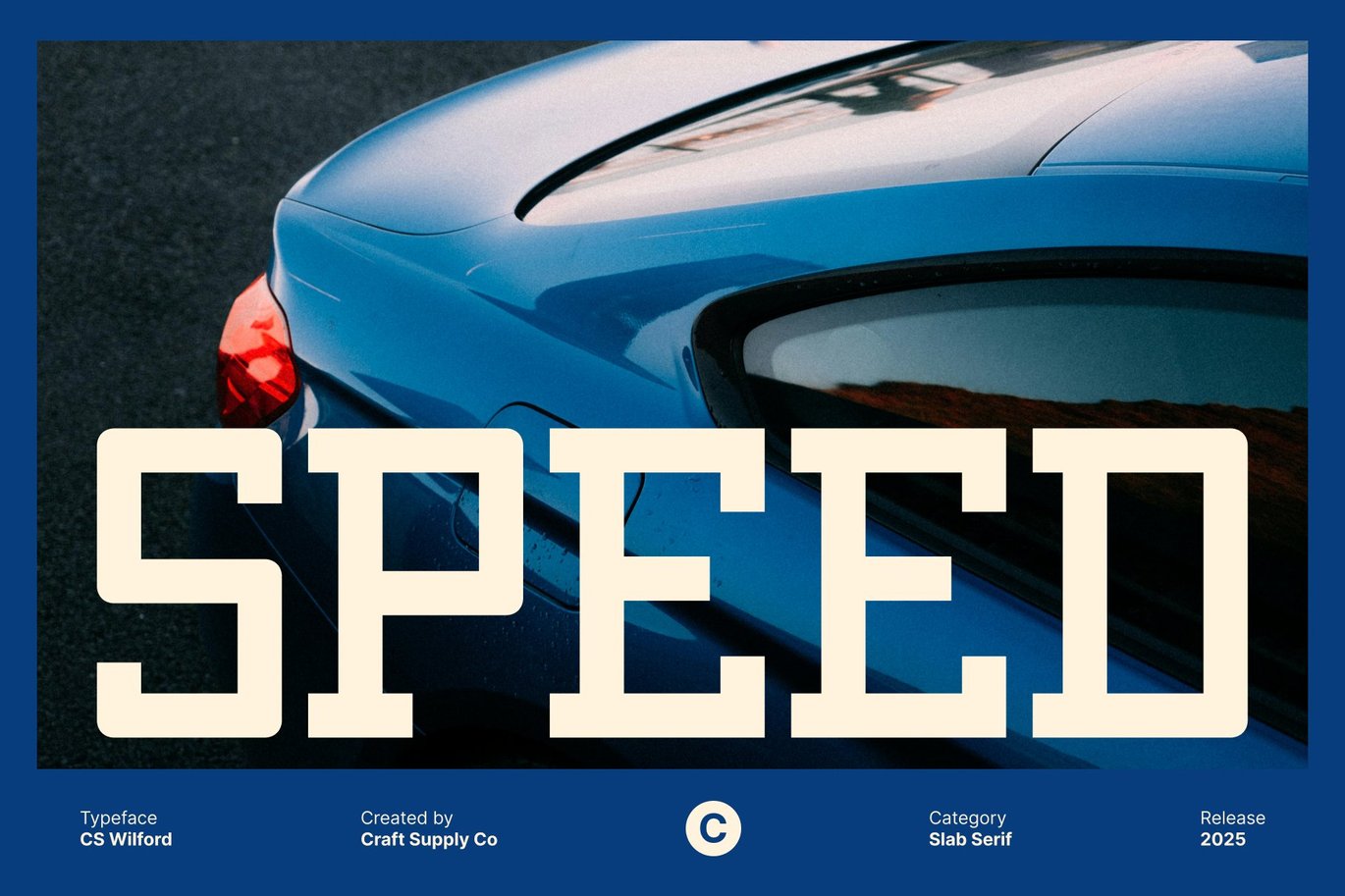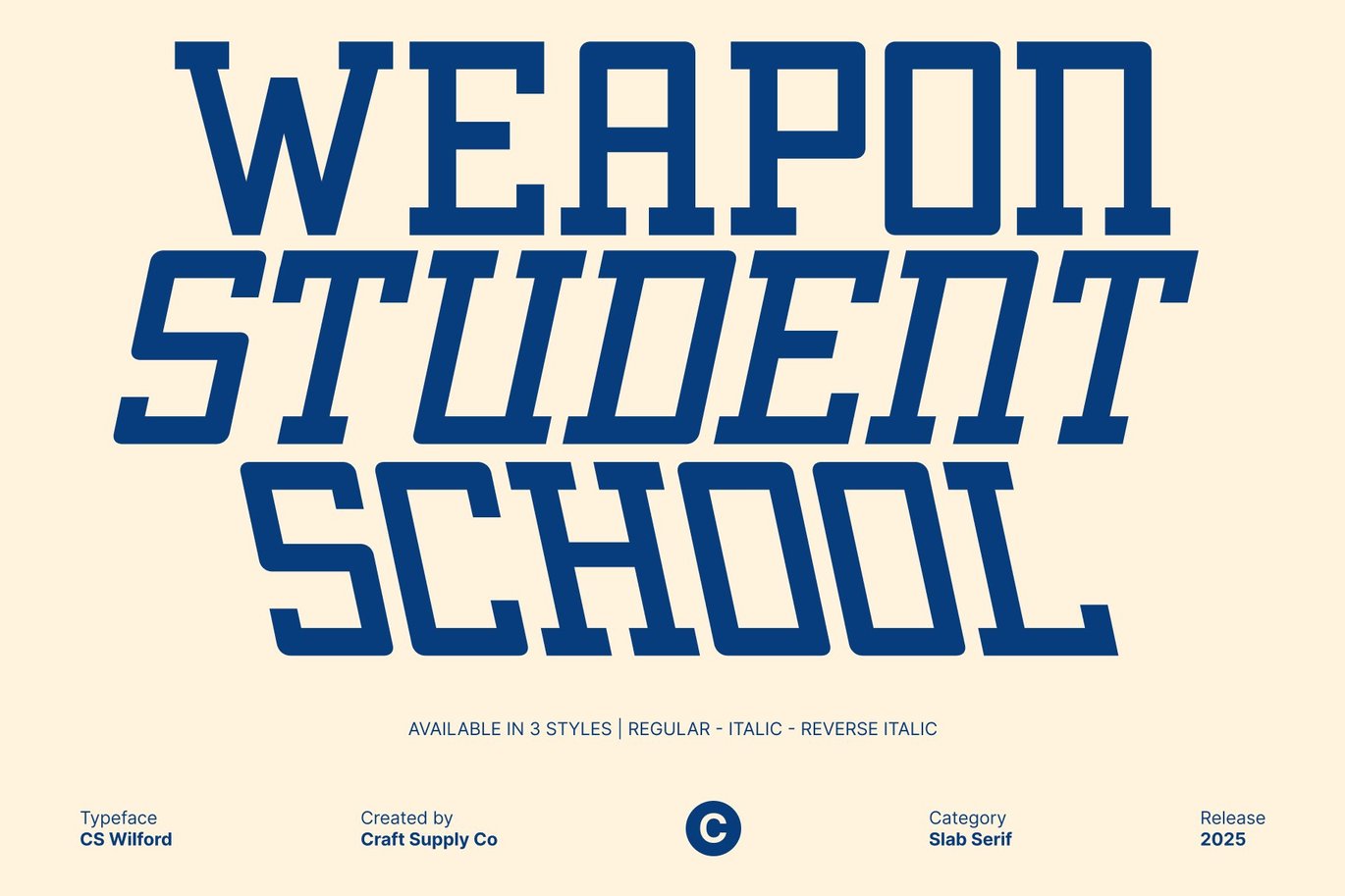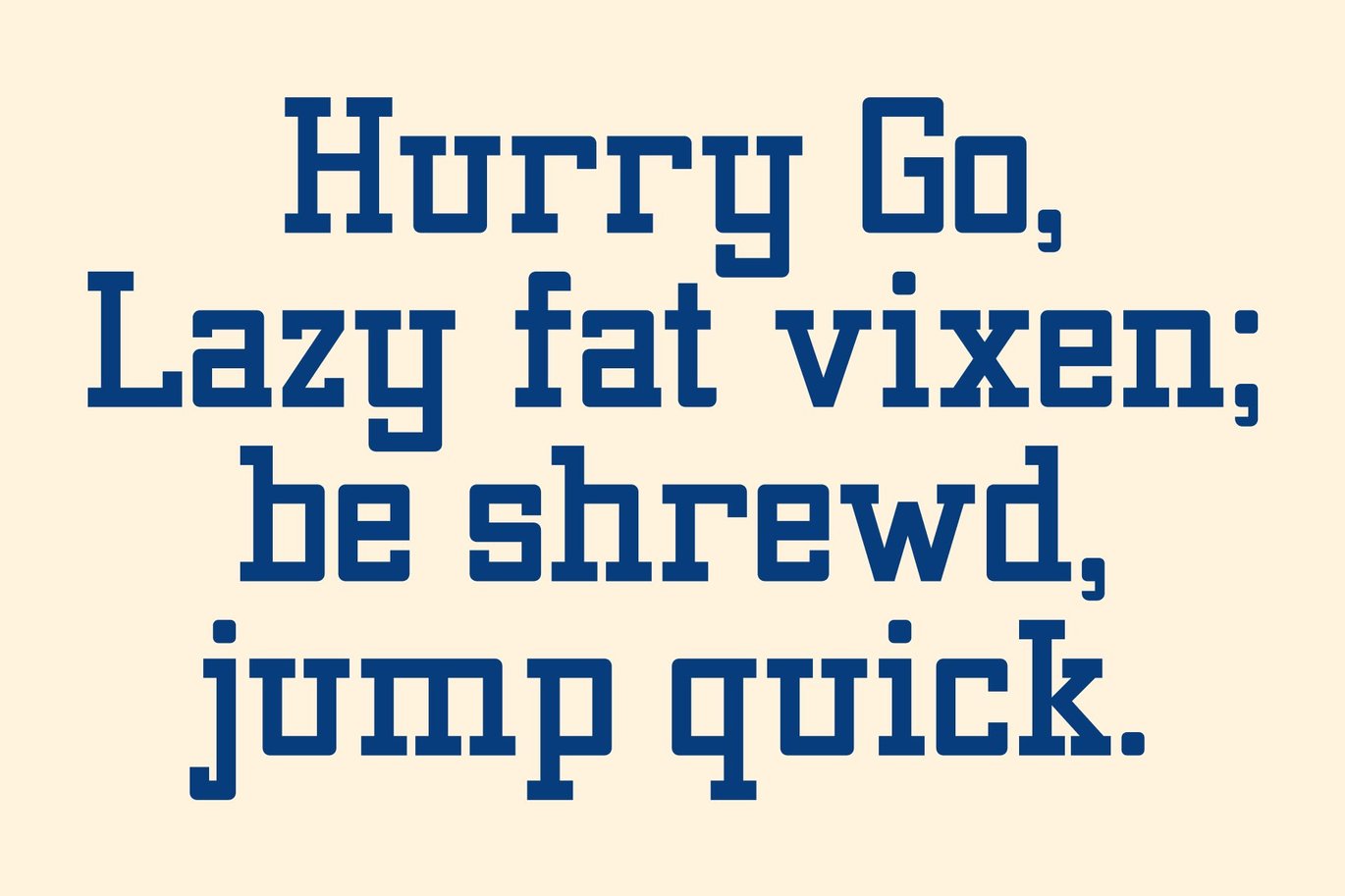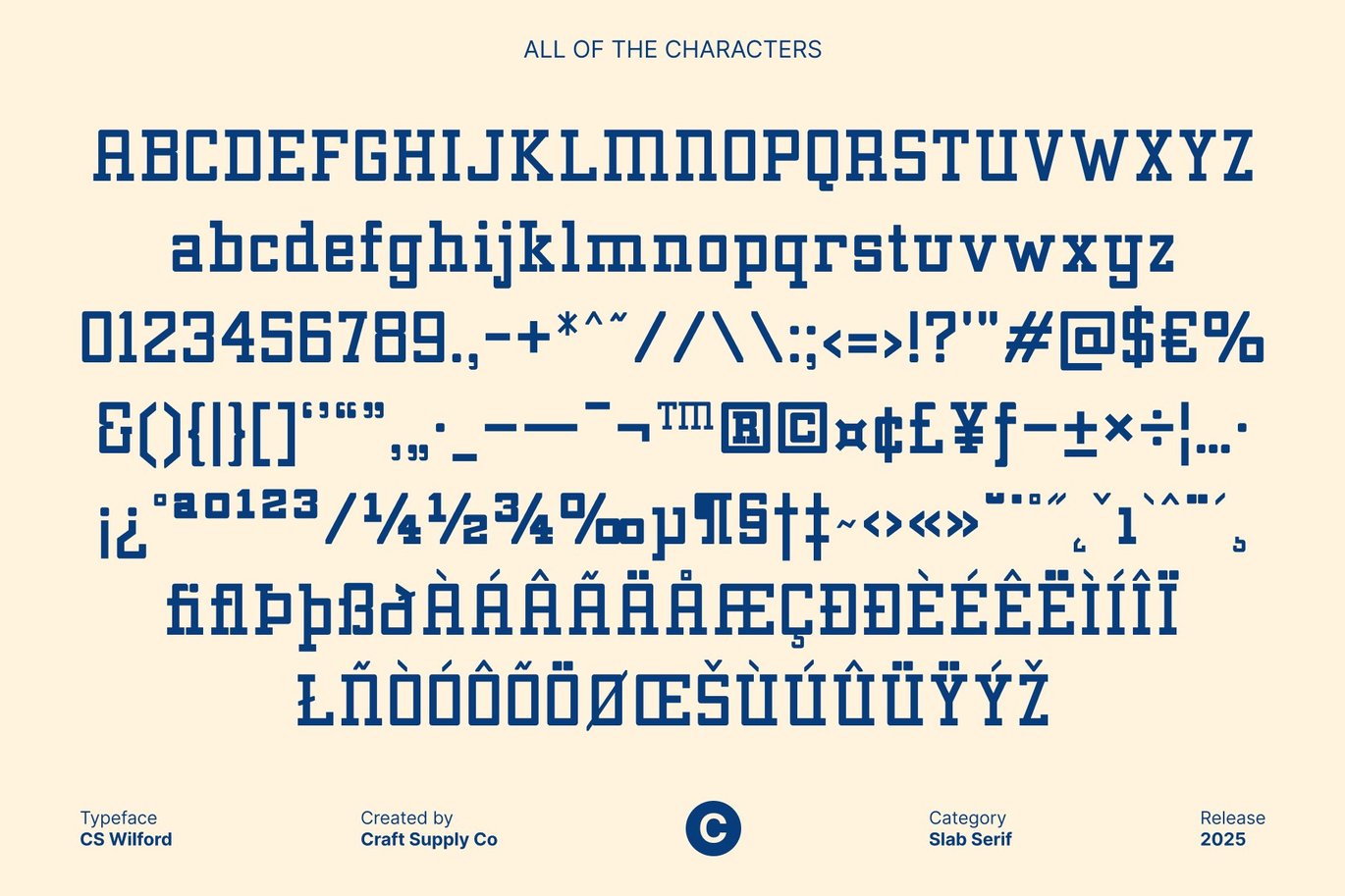
Wilford - Slab Serif Font
CS Wilford – Modern Slab Serif with Square Strength Square-Edged Design for a Striking Visual Identity This is a slab serif font built with square shapes that instantly command attention. Its structured, geometric form gives every letter a powerful presence, making it ideal for designers seeking a modern and assertive typographic voice. The sharp edges and precise construction create a clean, impactful appearance that elevates any contemporary layout.
Robust Serifs for Stability and Character With its sturdy slab serifs, this font delivers exceptional strength and clarity. The robust serifs enhance the font’s visual weight while maintaining smooth readability, allowing headlines and titles to stand out with confidence. These carefully designed serifs provide both aesthetic appeal and structural stability, creating a typeface that feels grounded and dependable.
Sporty Energy with Modern Versatility The unique square details give this font a sporty, energetic feel suitable for dynamic branding and active design concepts. Its character evokes movement, precision, and modern competitiveness perfect for sports branding, performance themed posters, or contemporary marketing materials.
Reliable Readability Across Various Applications Despite its strong visual personality, this font remains highly legible in both large and medium sizes. The well-defined shapes, balanced proportions, and geometric consistency ensure clarity across print and digital mediums. Whether used for headlines, editorial titles, or promotional visuals, this font offers a reliable and polished typographic solution that blends strength with style.